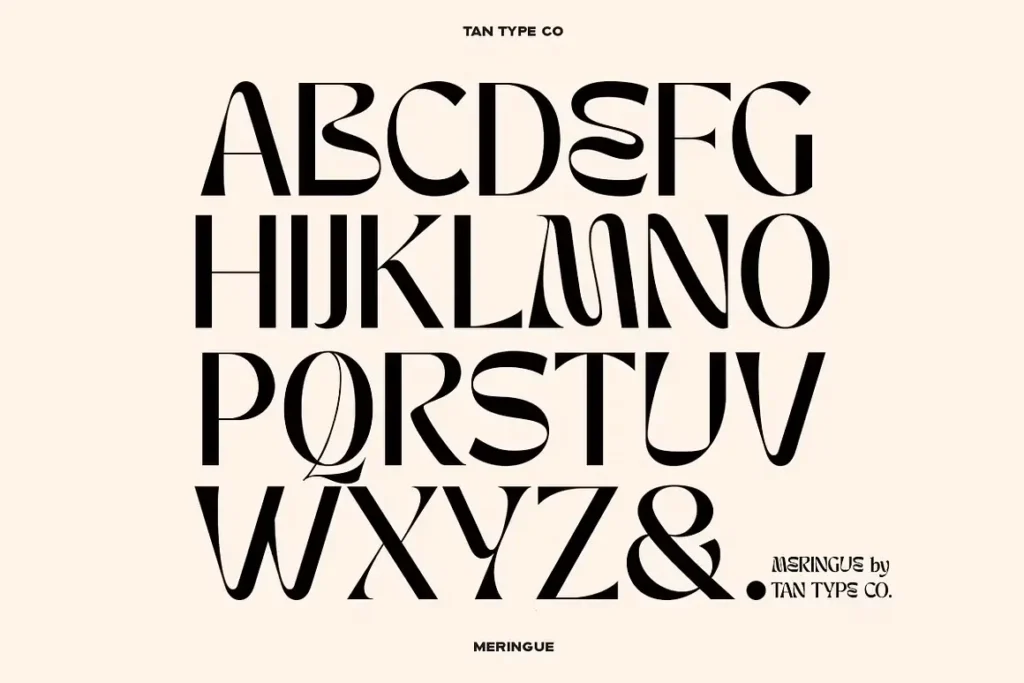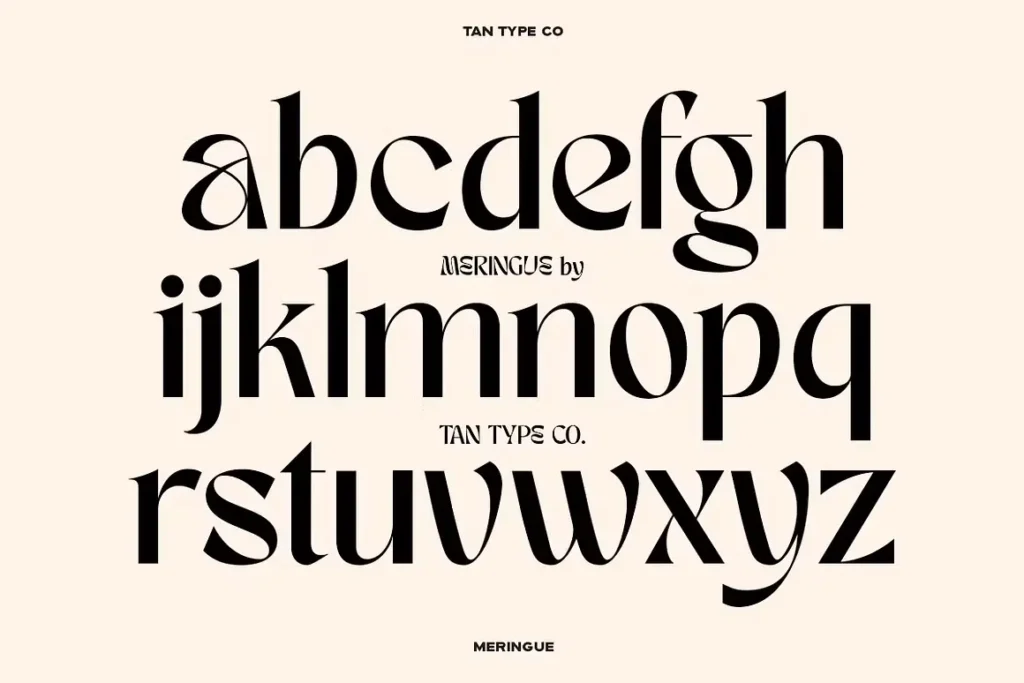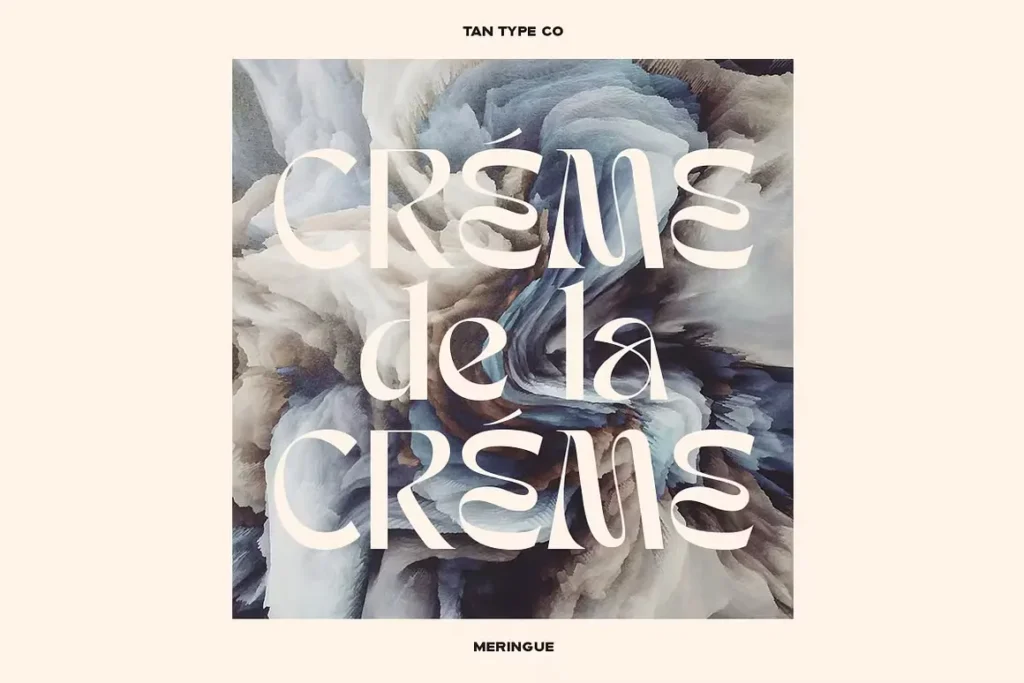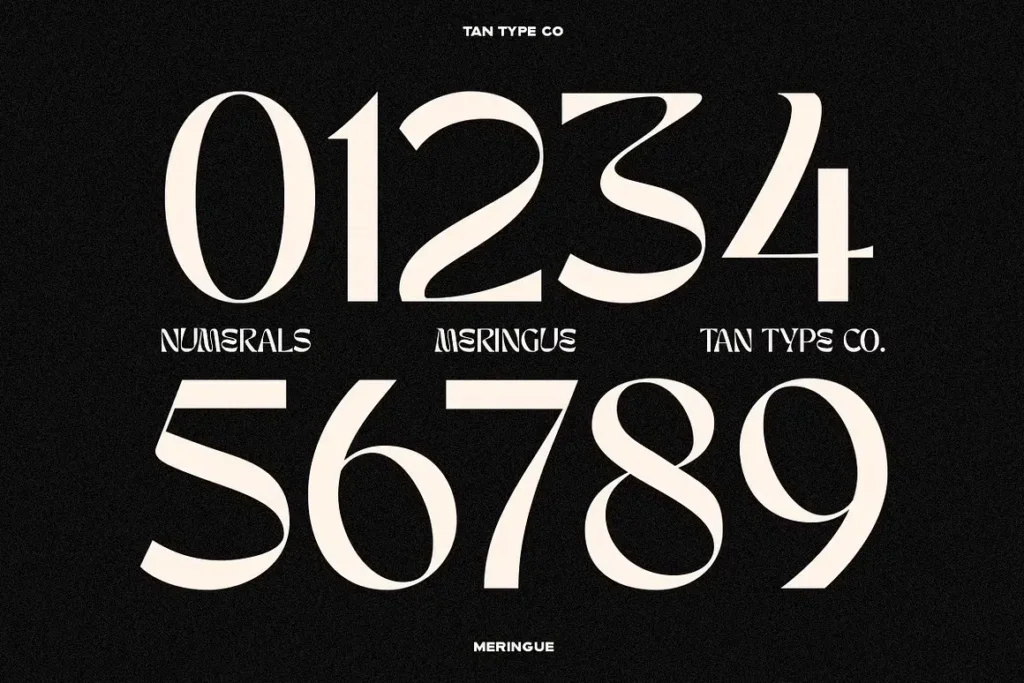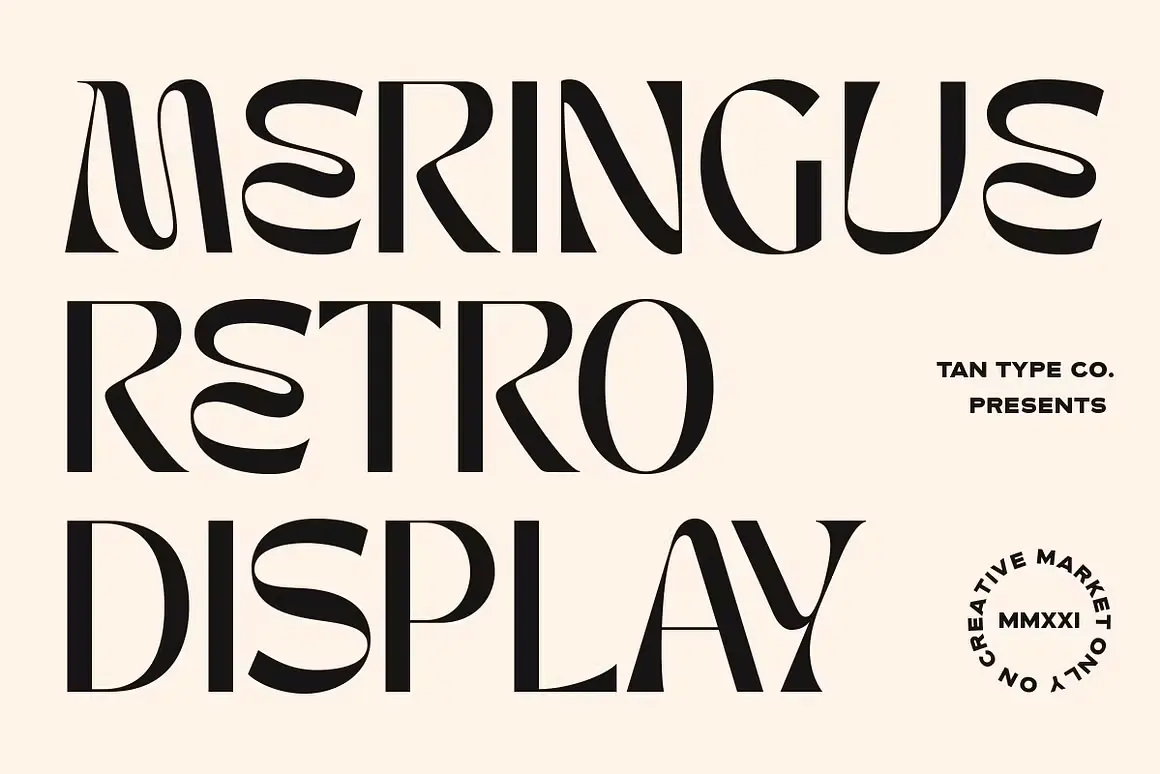
About Tan Meringue Font
Hey there! I just wrapped up a branding project using the Tan Meringue Font, and I’m totally excited to share my experience with you! As a typographer and graphic designer for 8+ years, I’m always searching for fonts with unique personality. I discovered this gem while browsing Creative Market during a late-night design session. The curves and retro vibe instantly grabbed my attention!
Since then, I’ve used it for a vintage café logo, social media graphics for a boutique, and a magazine layout that needed extra charm. My clients absolutely love how this display typeface stands out! This font has such a distinct character—let me tell you why it might be perfect for your next design project too.
The Story Behind The Font
Tan Meringue Font comes from TanType studio, creators of typefaces with undeniable personality. This classy display font blends retro aesthetics with modern usability, making it a standout choice for creative professionals.
What makes this font special is how it balances funky letterforms with readable text. The typeface features subtle serif details alongside playful curves that give any brand communication a friendly, approachable quality. You can see clear inspiration from vintage font styles of the 70s, yet it feels completely fresh for today’s design projects.
Each letter in the Tan Meringue font feels crafted with purpose—the uppercase characters make bold statements perfect for logo design, while lowercase letters maintain excellent readability. The font includes beautiful ligatures that create flowing connections between certain letter combinations.
TanType has developed something truly unique—a display typeface that communicates more than just words. It conveys feeling, aesthetic, and brand personality through carefully designed curves and proportions that few other fonts achieve.
Features That Make It Special
A major highlight is its impressive multilingual support. The character set extends beyond English to include different languages, making it valuable for international branding material. Each special character maintains the font’s distinctive style and personality.
The unique curves in this typeface create natural rhythm in text. When used in poster design or magazine layouts, words take on a creative energy that flat, standard fonts simply can’t deliver. Headlines set in Tan Meringue immediately capture attention through their distinctive shape.
Despite being a decorative display typeface, text remains surprisingly readable. Many script or artistic fonts sacrifice legibility, but Tan Meringue strikes an impressive balance between style and function, working well for shorter text blocks in advertisements.
The OpenType features include stylistic alternatives that let designers customize specific letters, creating truly unique brand expressions even when multiple companies use the same font. This flexibility makes it a great font for designers who need versatility.
Tan Meringue Font shines brightest in branding projects where personality matters. I’ve watched it transform ordinary logos into memorable brand identifiers with serious staying power. The font’s retro vibe pairs beautifully with modern design elements for businesses wanting to appear established yet current.
Social media graphics gain instant appeal with Tan Meringue headlines. The distinctive letterforms stand out even as users quickly scroll through feeds. For Instagram posts, Facebook headers, or Pinterest graphics, this font creates visual interest that generic typefaces simply can’t match.
Magazine layouts benefit tremendously from using Tan Meringue for section headers or pull quotes. The font naturally creates hierarchy, guiding readers through content while adding visual interest. I’ve incorporated it into editorial designs where it complemented both minimalist and detailed layouts.
Website design is another perfect application. As a display typeface for headers and menu items, it adds character while remaining readable. For font pairing ideas, try combining it with a clean sans-serif for body text—this contrast creates professional yet friendly websites.
Posters, packaging designs, and advertisements gain instant charm with Tan Meringue. The font communicates a welcoming aesthetic that connects with audiences. Even simple product labels become more engaging with this typeface handling the important information.